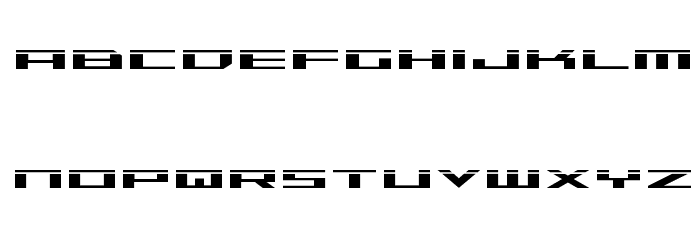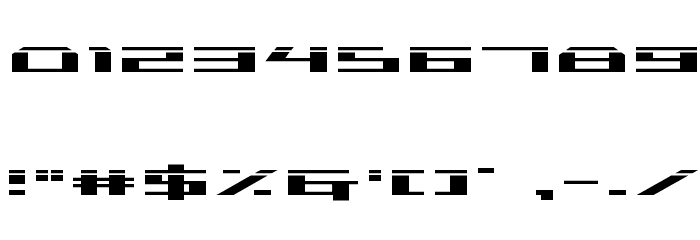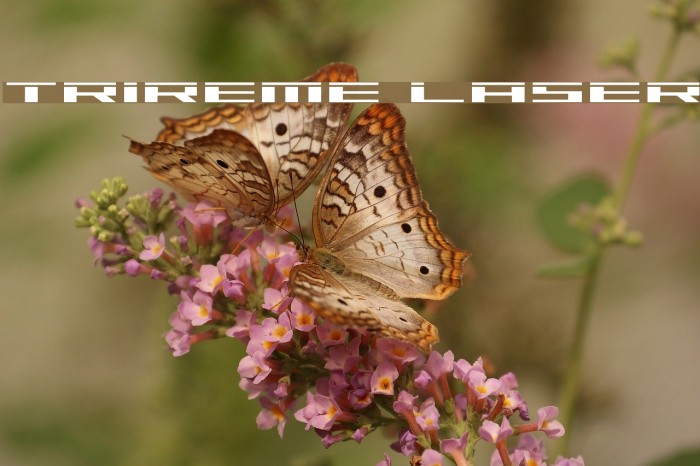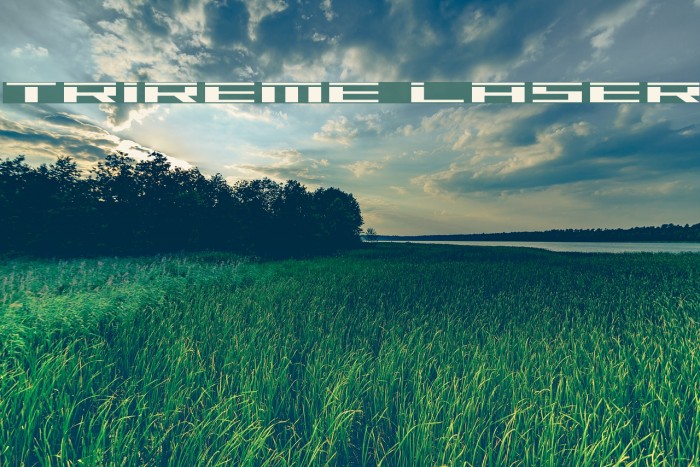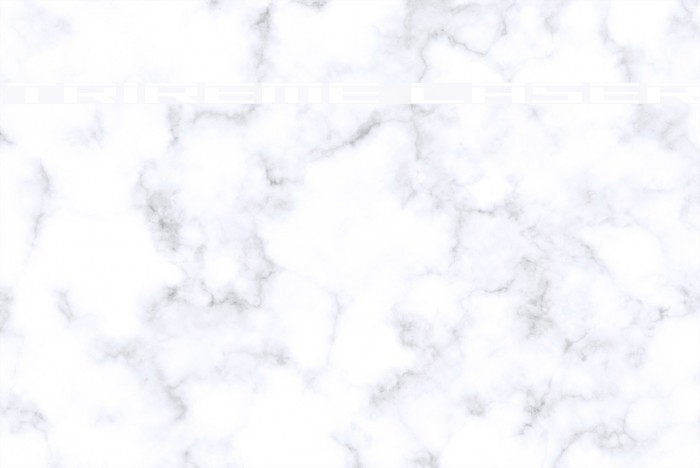
Trireme Laser Font
This font features a futuristic and geometric design, characterized by its sharp angles and bold, block-like appearance. The uppercase and lowercase letters maintain a consistent style, with a strong emphasis on horizontal and vertical lines. The numerals and special characters follow the same aesthetic, providing a cohesive look across all glyphs. The font's unique style is reminiscent of digital or sci-fi themes, making it suitable for projects that require a modern and edgy feel. Its distinct appearance ensures high legibility and impact, especially in larger sizes.
A futuristic, geometric font with sharp angles and a bold, digital aesthetic.
- Proposed Projects: Ideal for sci-fi themed designs, video game graphics, tech branding, and futuristic posters.